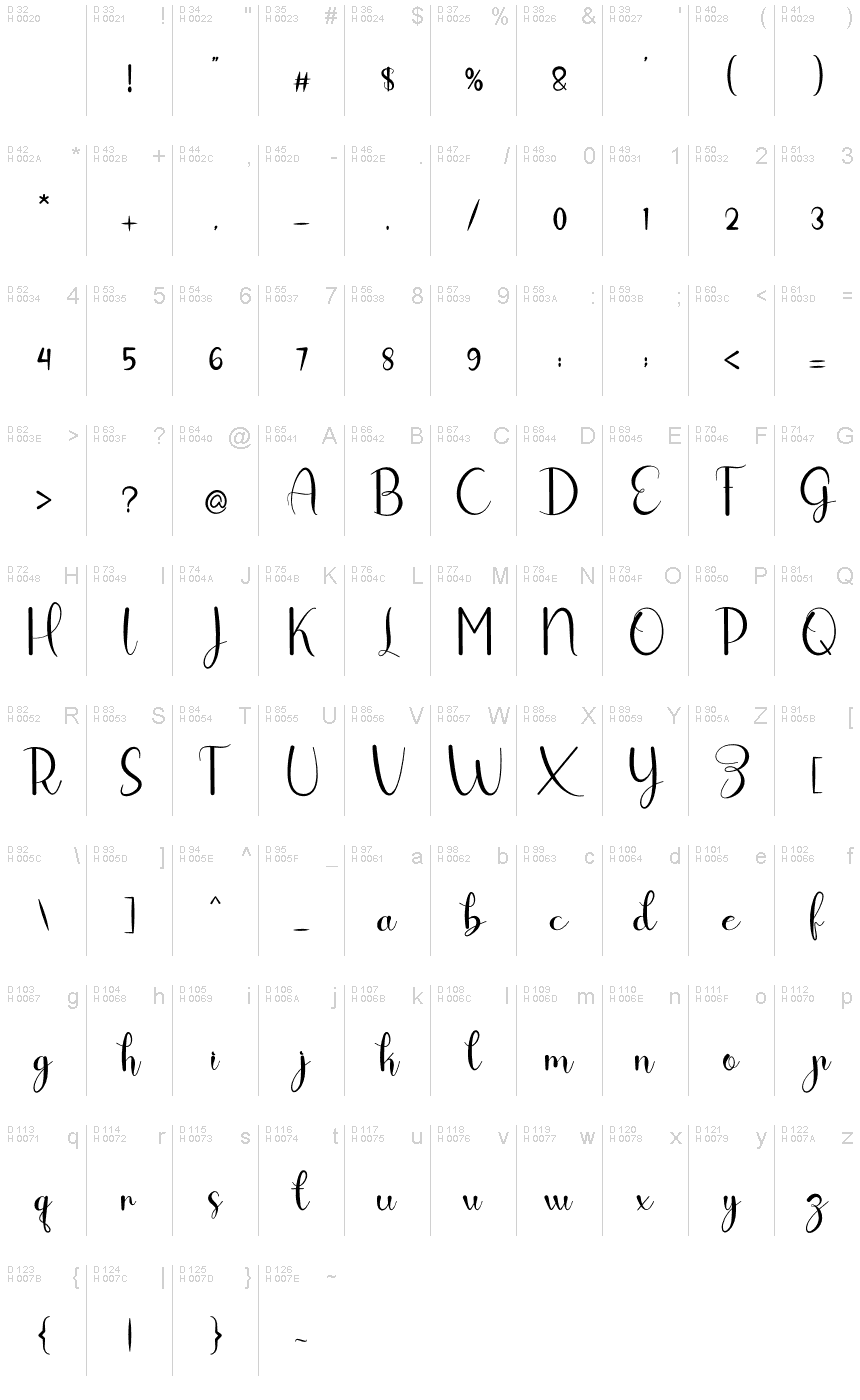
Olgando
Olgando, crafted by the talented Fahmi Hayat, is a stunning calligraphy font that exudes elegance and sophistication. Its semi-light weight adds a delicate touch to any design project, making it perfect for wedding invitations, greeting cards, and other formal announcements. With its flowing strokes and intricate details, Olgando is also suitable for branding materials such as logos and product packaging. Whether you're looking to add a touch of class to your next project or simply want to make a statement with your typography, Olgando is sure to impress.